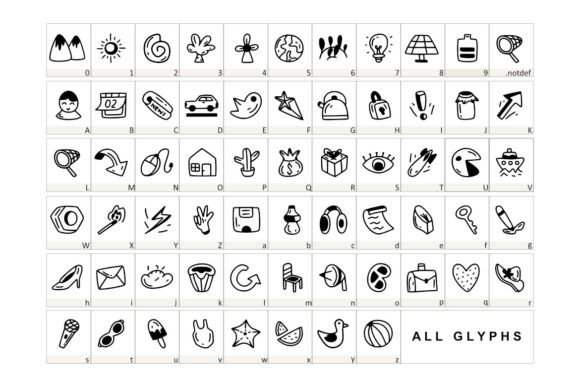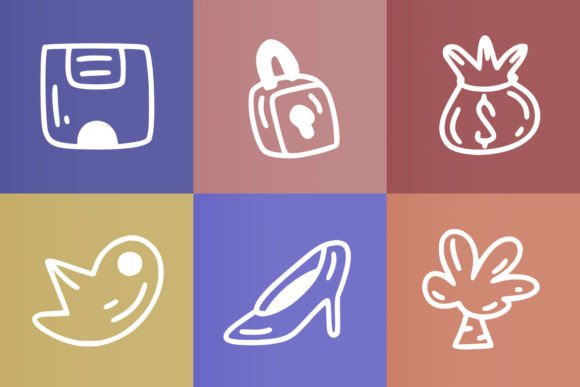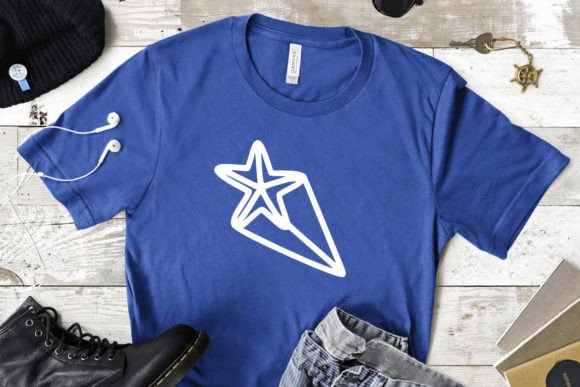
The Freshness Font: A Fun and Versatile Dingbats Font for Creative Projects
Have you ever been in the middle of a design project, and suddenly, you just can’t seem to find the right font? I recall a particularly frustrating experience while working on a sticker design for a client’s summer sale. I had a clear vision of what I wanted to create, but my font choices just weren’t delivering the fun, playful vibe I was after. That’s when I stumbled upon the Freshness font, and let me tell you, it was a game-changer! 🎉
An Honest Review of Freshness Font
I’m excited to share my thoughts on the Freshness font, and I’ll give it to you straight – the good, the bad, and everything in between.
What I Love About Freshness Font
- ✨ Versatility: This font is perfect for a wide range of projects, from stickers and posters to t-shirts and cards.
- ✅ Ease of use: The font is incredibly easy to use, even for those who are new to design.
- 💡 Inspires creativity: The unique dingbats and glyphs in Freshness font will spark your creativity and help you come up with fresh ideas.
- 🌈 Fun and playful: The font has a fun, playful vibe that’s perfect for projects that require a bit of whimsy.
While I absolutely love the Freshness font, there are a few minor quirks to be aware of:
- 🤔 Limited text use: While the font is great for short phrases or titles, it may not be the best choice for longer blocks of text.
- ⚠️ Some glyphs may not display correctly: As with any font, there may be some glyphs that don’t display correctly on certain devices or platforms.
The Backstory of Freshness Font
The Freshness font was designed with one goal in mind: to create a fun and versatile dingbats font that would inspire creativity and add a touch of whimsy to any project. The designer, a creative and playful individual, wanted to create a font that would be perfect for a wide range of projects, from stickers and posters to t-shirts and cards.
| What type of projects is Freshness font best suited for? | Freshness font is perfect for a wide range of projects, including stickers, posters, t-shirts, cards, and more. |
| Is Freshness font easy to use? | Yes, Freshness font is incredibly easy to use, even for those who are new to design. |